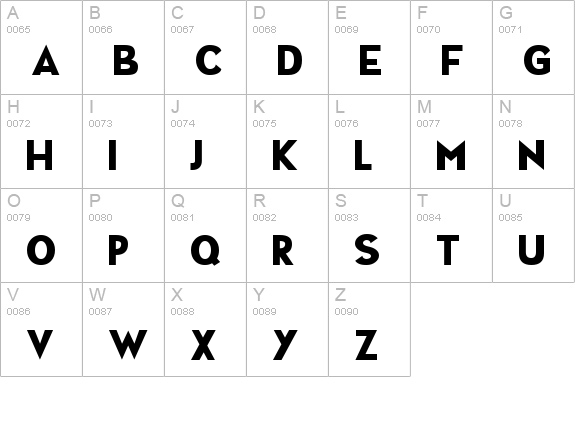
News Flash Font Details
News Flash is a donationware font in the General > Sans-Serif category, designed by Darrell Flood. It has been downloaded 127 times and is available for Windows, Mac and Linux.
Introducing the captivating News Flash font, a dynamic and modern typeface that is sure to make headlines! This versatile font is perfect for grabbing attention and making a statement in any design project. With its sleek lines and bold letterforms, News Flash exudes confidence and sophistication.